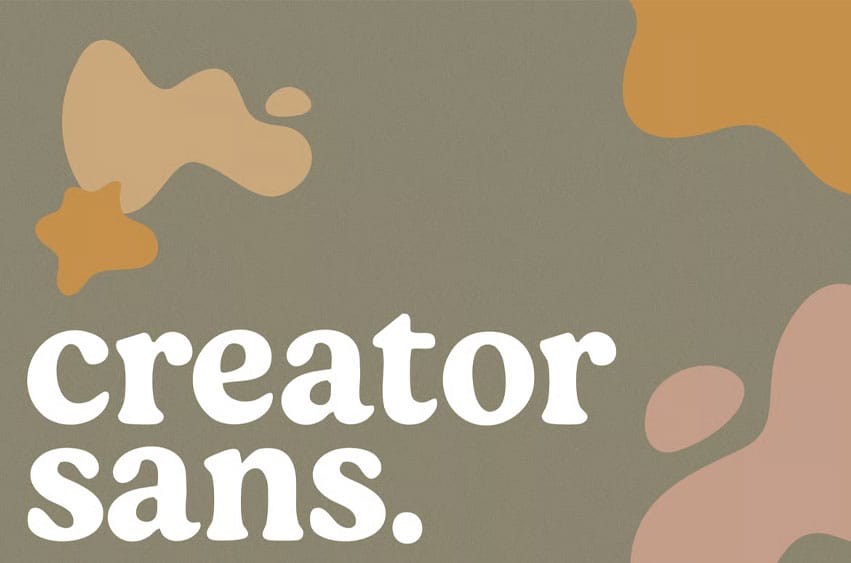
Creator Sans Font is a professionally crafted, rounded display font which looks beautiful on printed stationary, packaging and also for digital artwork.